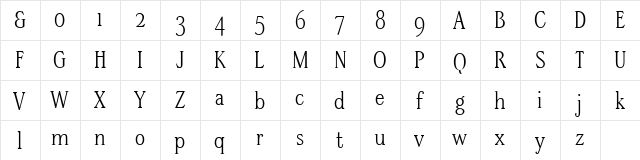
SteppITC-Medium xPDF Regular Font Preview
SteppITC-Medium xPDF Regular
SteppITC-Medium xPDF Regular Font Details
Design Context for SteppITC-Medium xPDF Typeface
SteppITC-Medium xPDF takes a measured approach to typography — its balanced proportions and neutral character make it a reliable workhorse for both digital and print work.